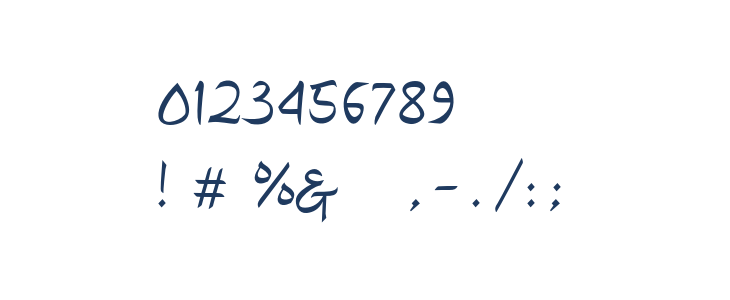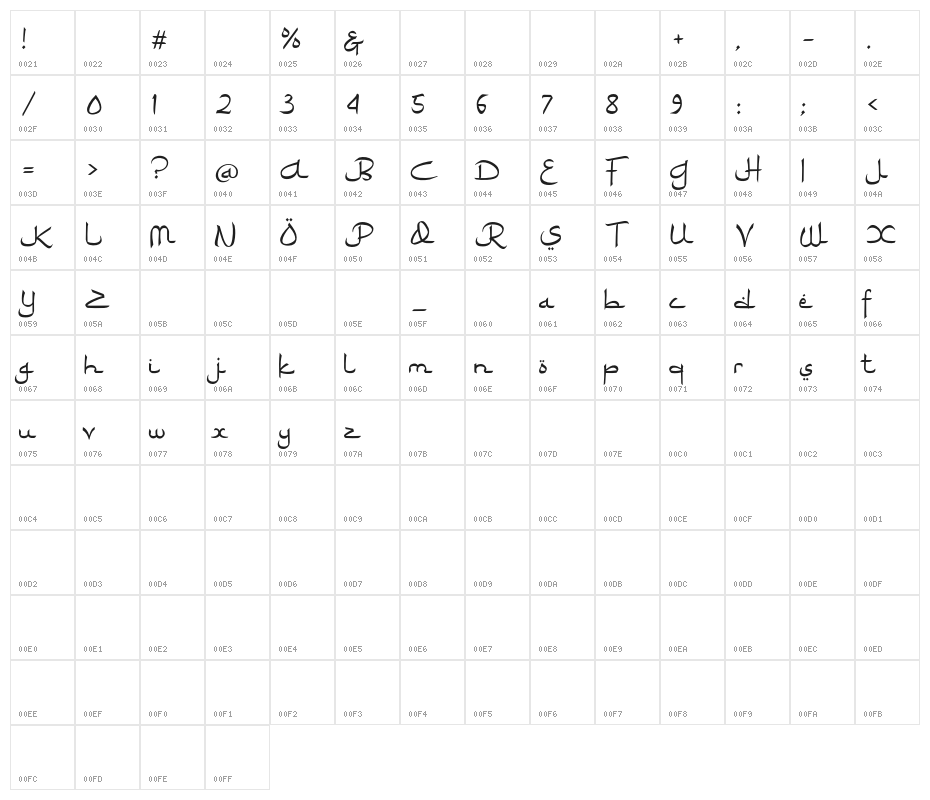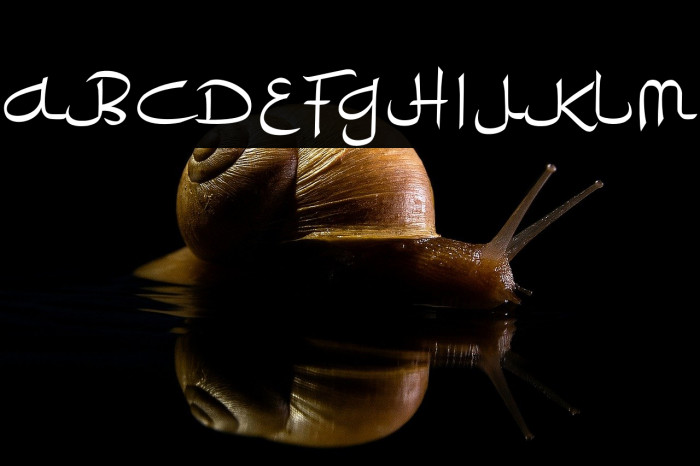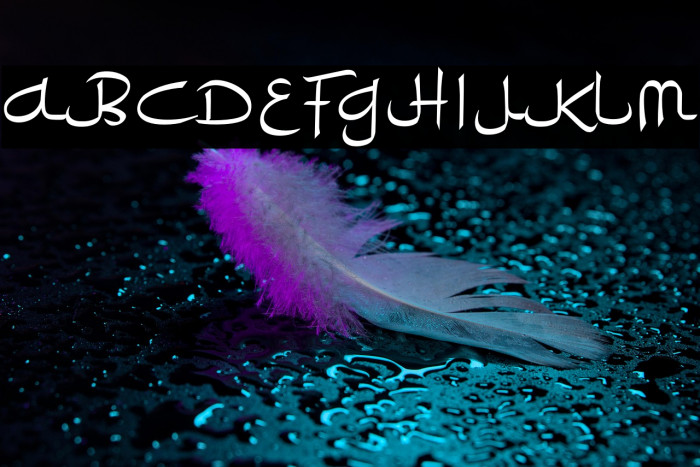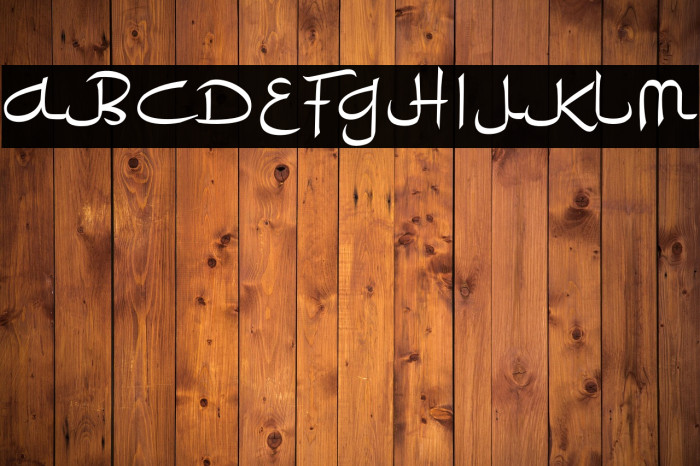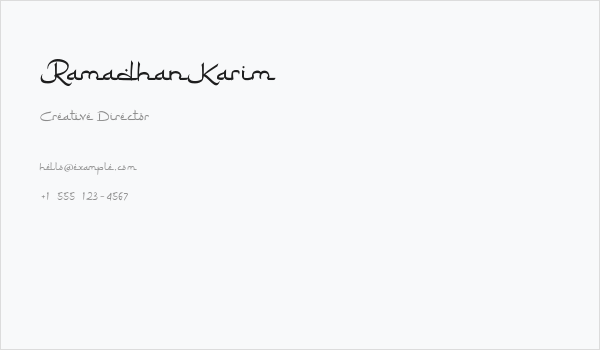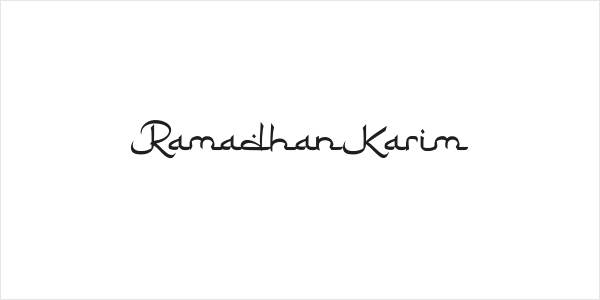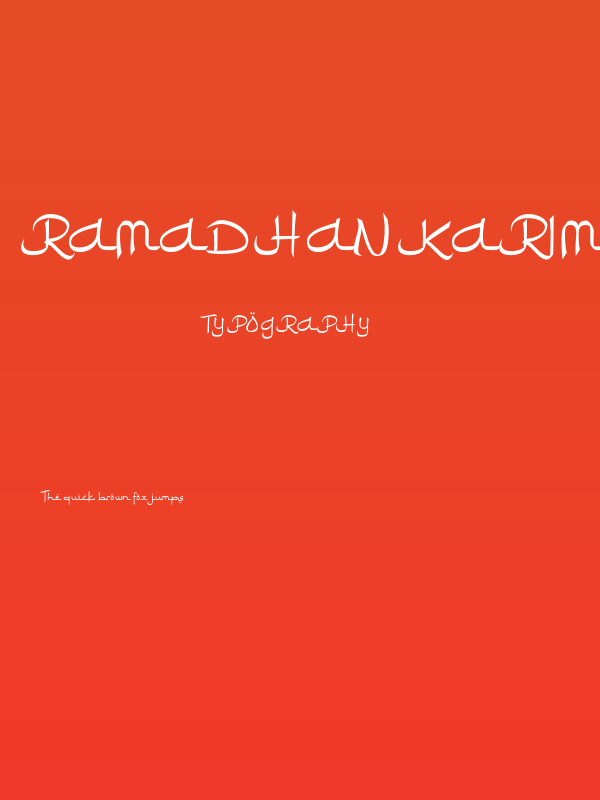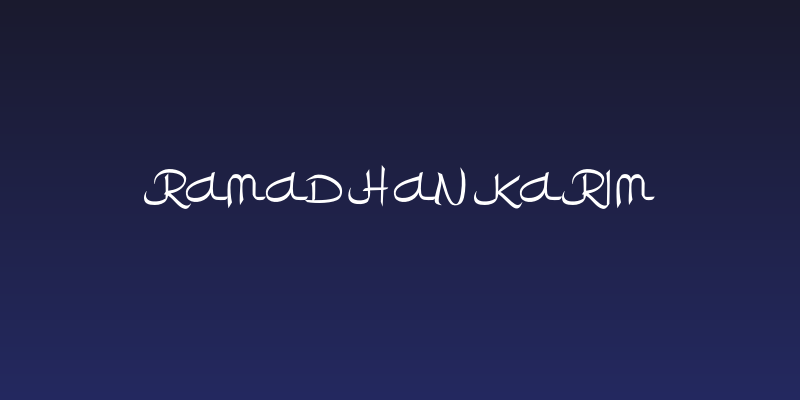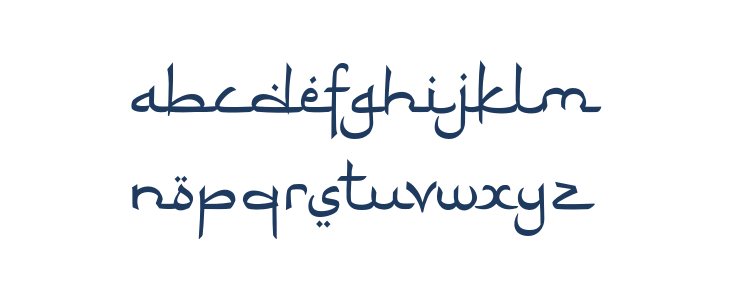
RamadhanKarim Font
RamadhanKarim Description
This font features a unique and artistic style with a calligraphic influence, characterized by flowing curves and elegant strokes. The uppercase letters exhibit a distinct flair, with some characters incorporating additional decorative elements, such as the umlaut on the 'Γβ' and the cedilla on the 'Γ
ΕΎ'. The lowercase letters maintain a consistent style, with smooth, rounded forms that complement the uppercase set. Numbers are bold and clear, ensuring readability, while the special characters add a touch of whimsy to the overall design. The font's playful yet sophisticated appearance makes it suitable for creative projects.
| Proposed Projects | Ideal for invitations, greeting cards, branding, and artistic projects requiring a touch of elegance. |